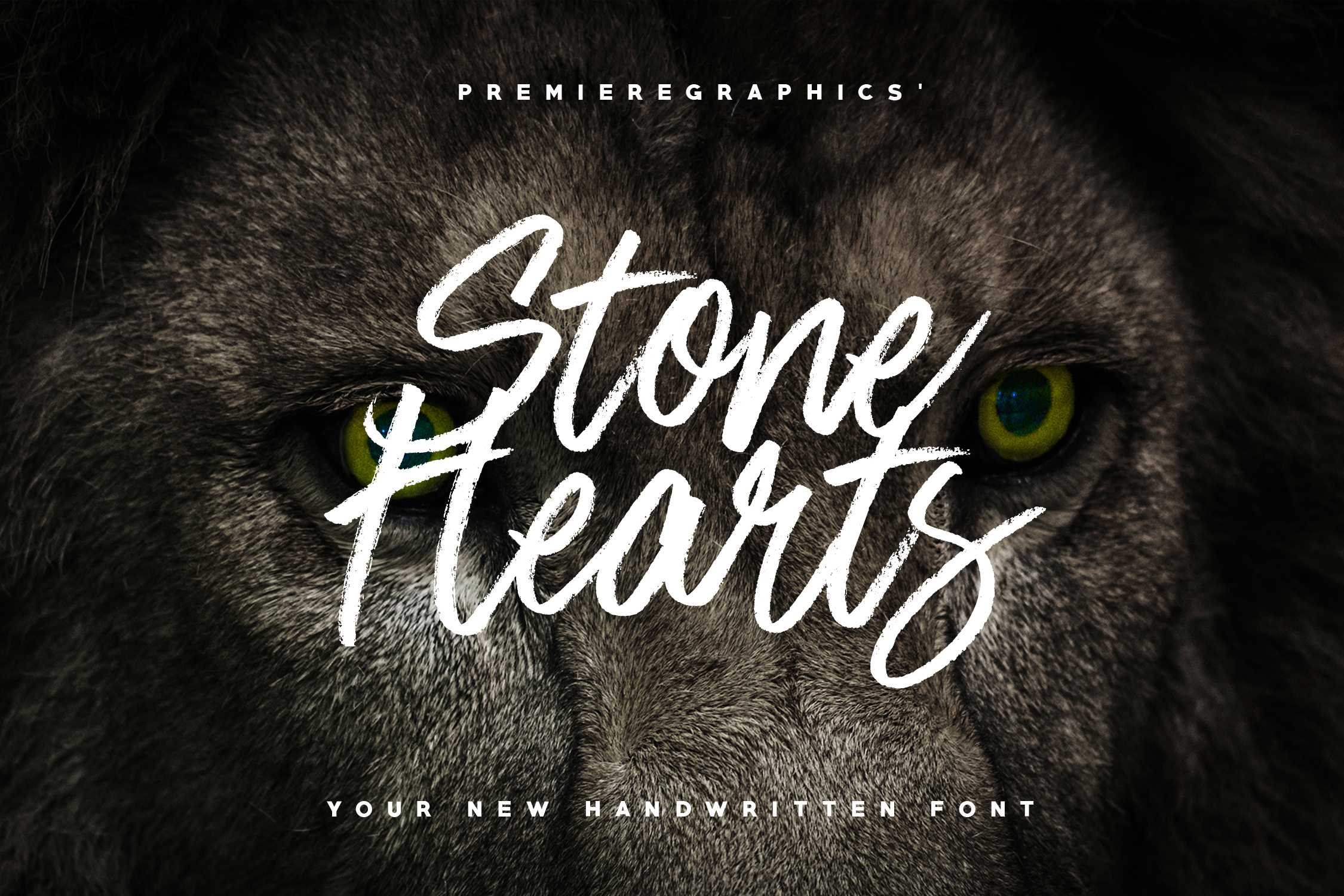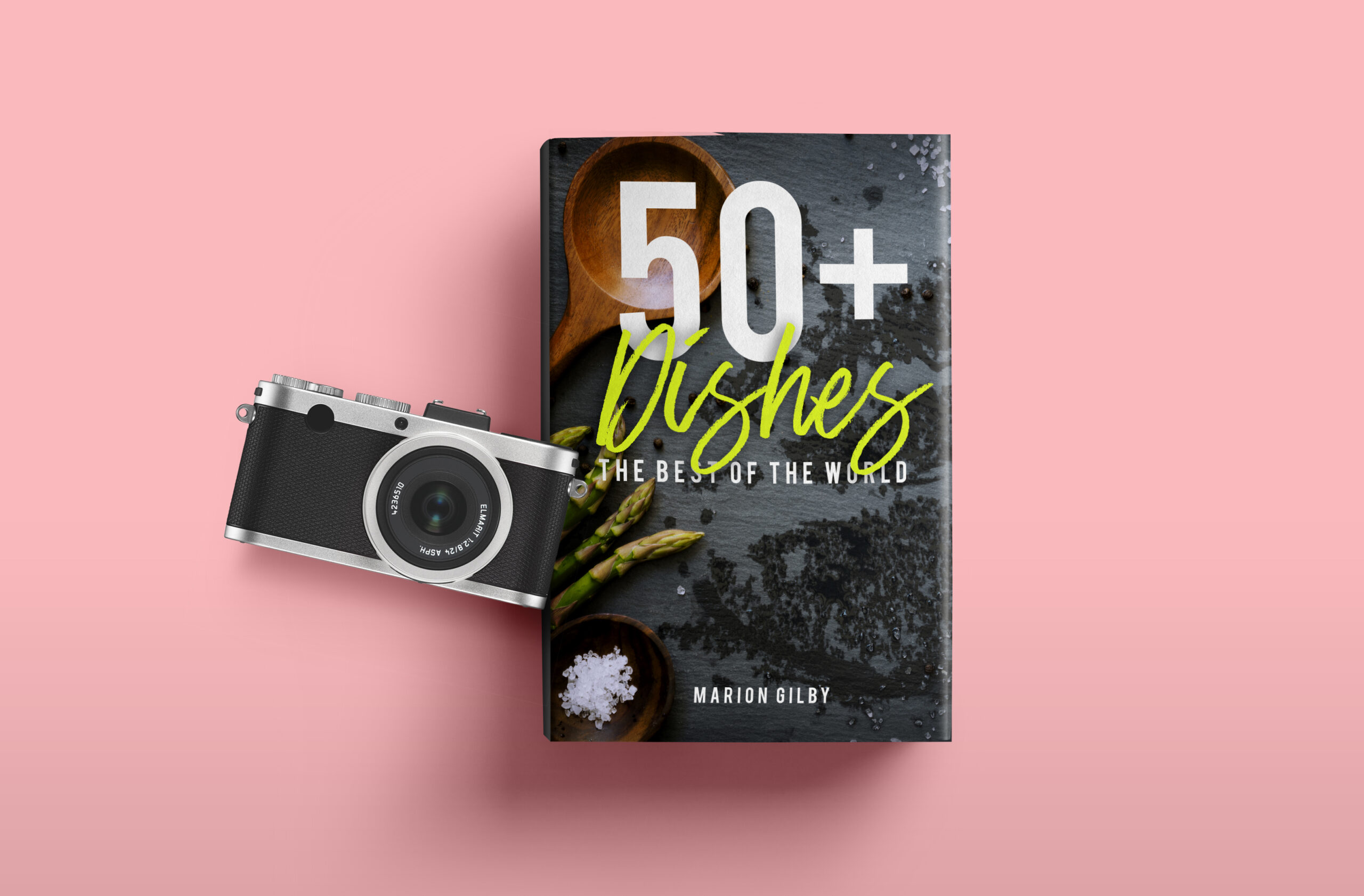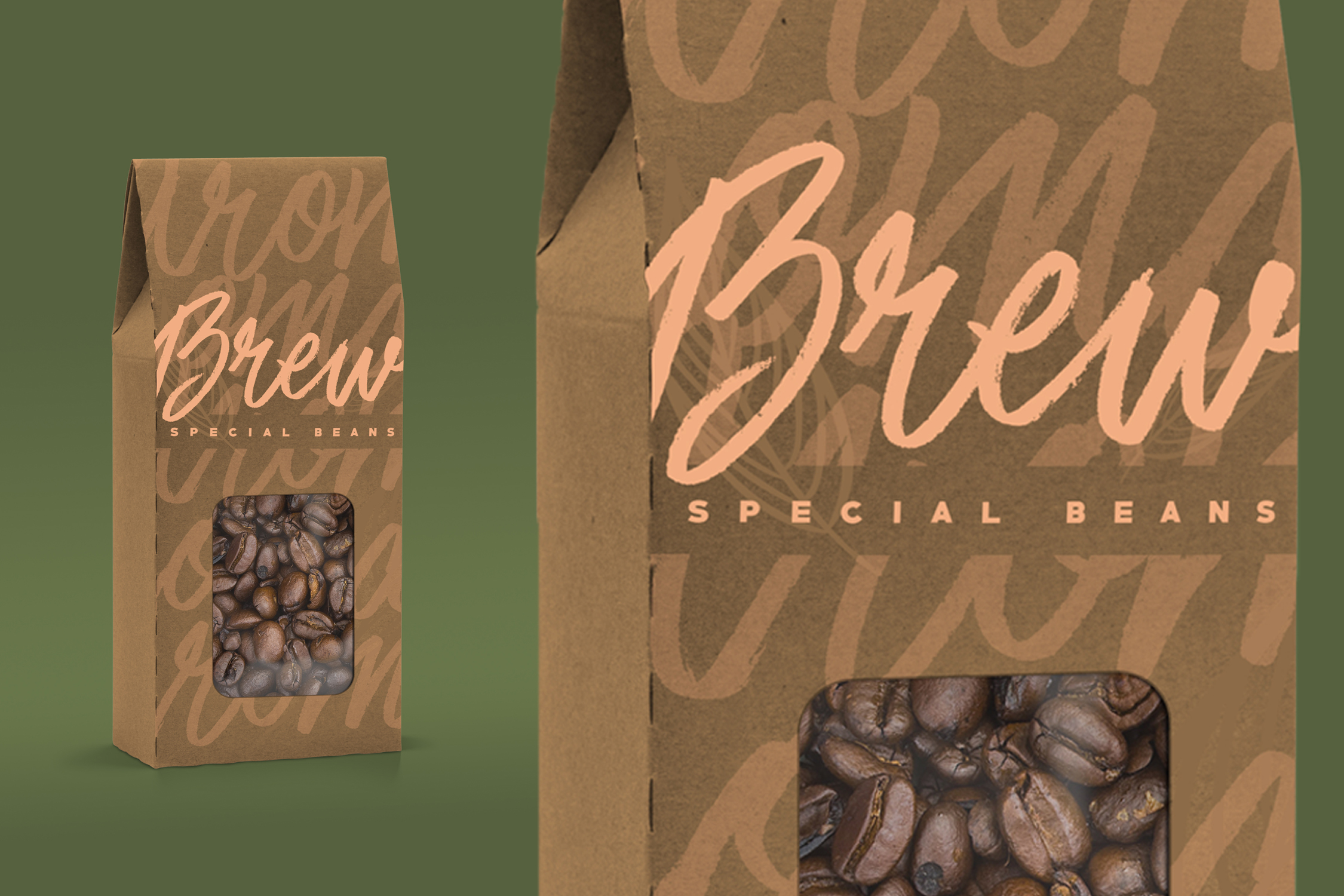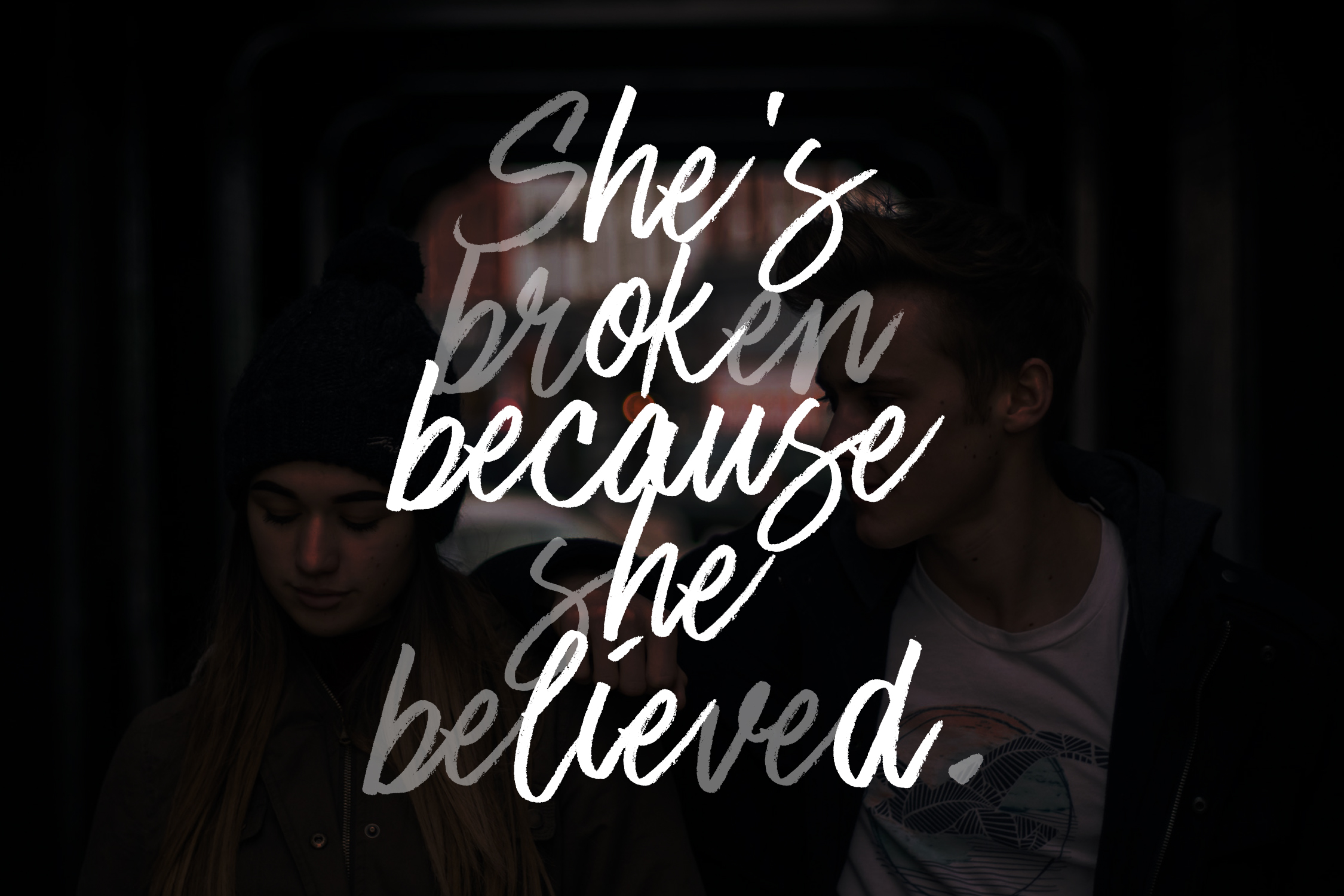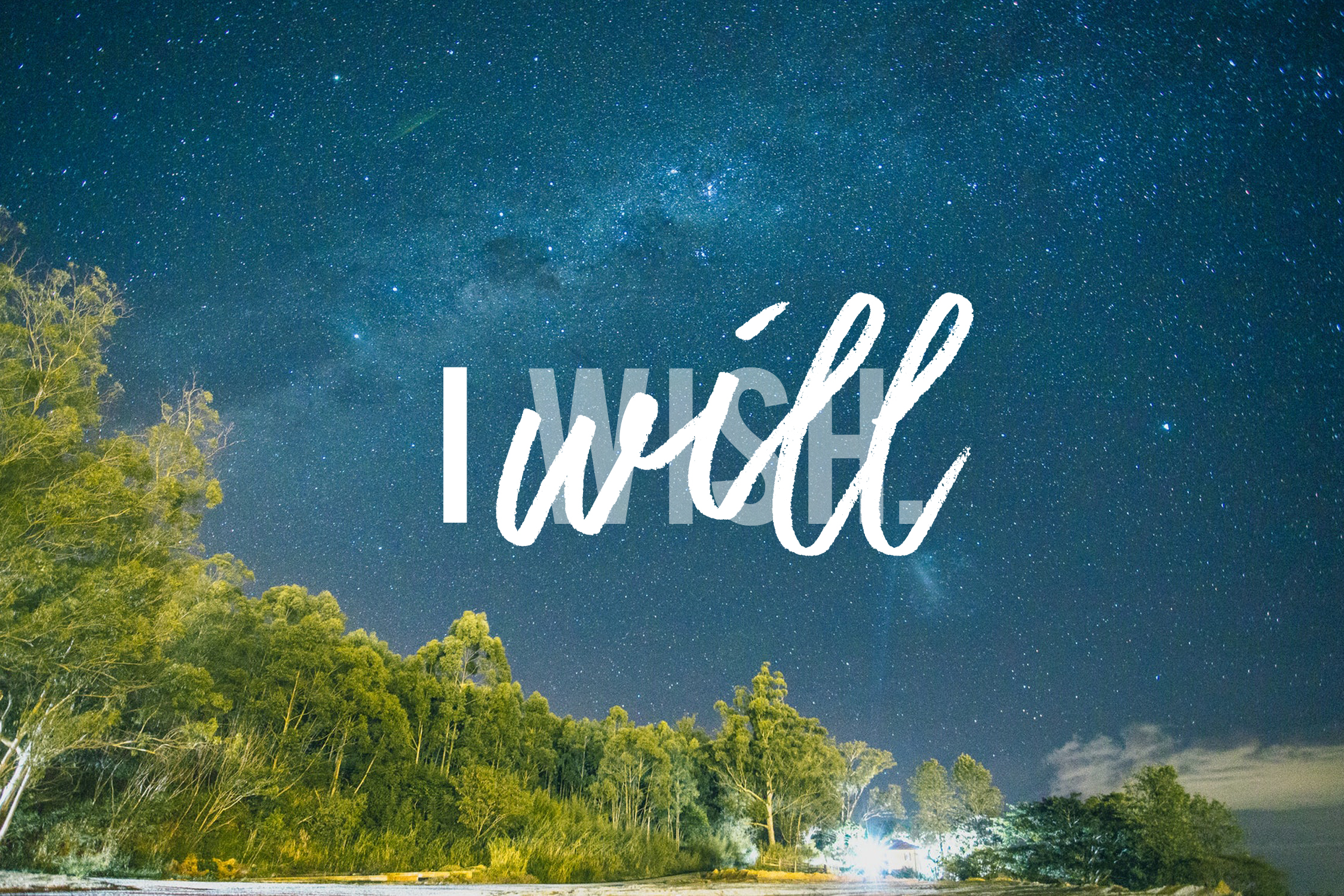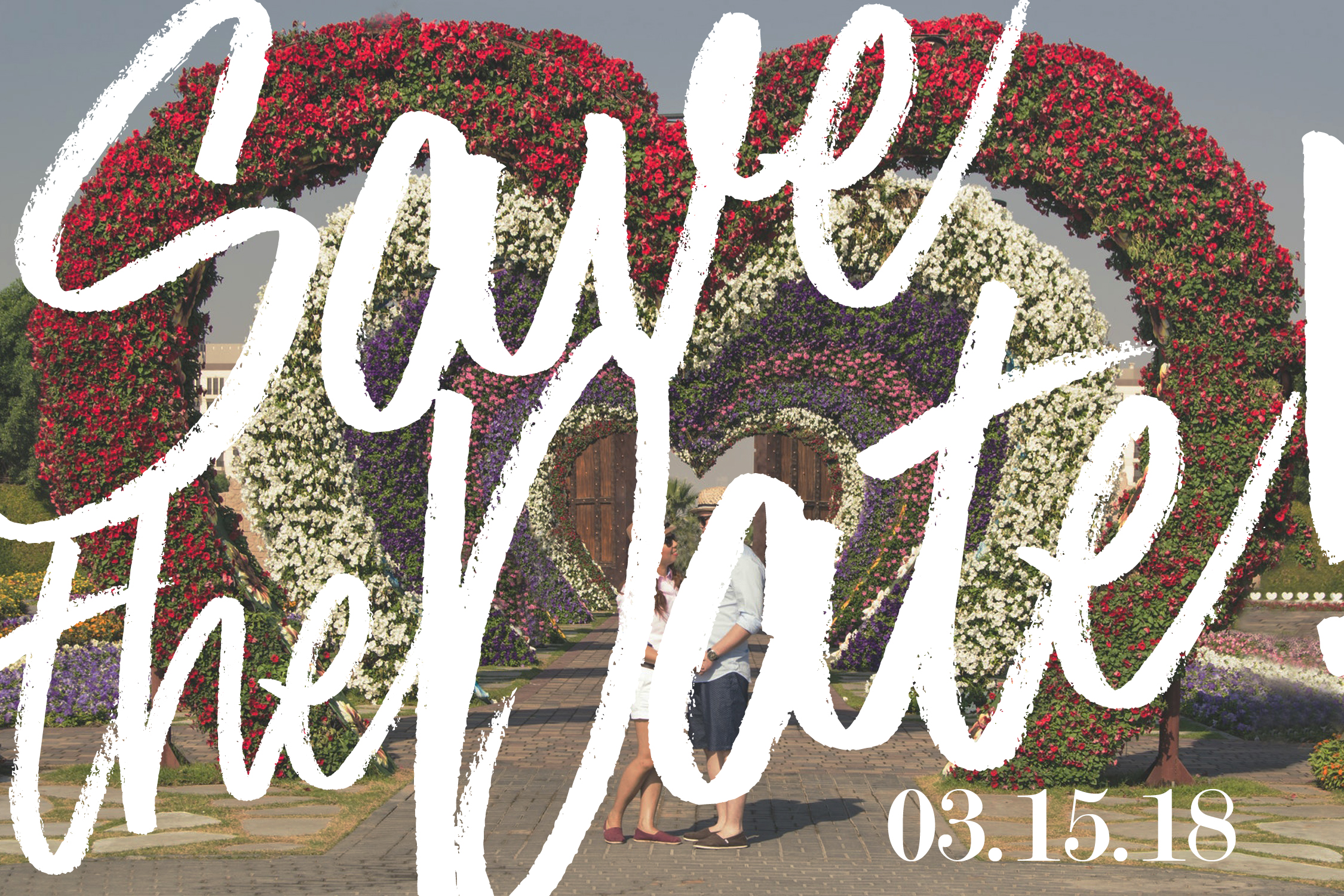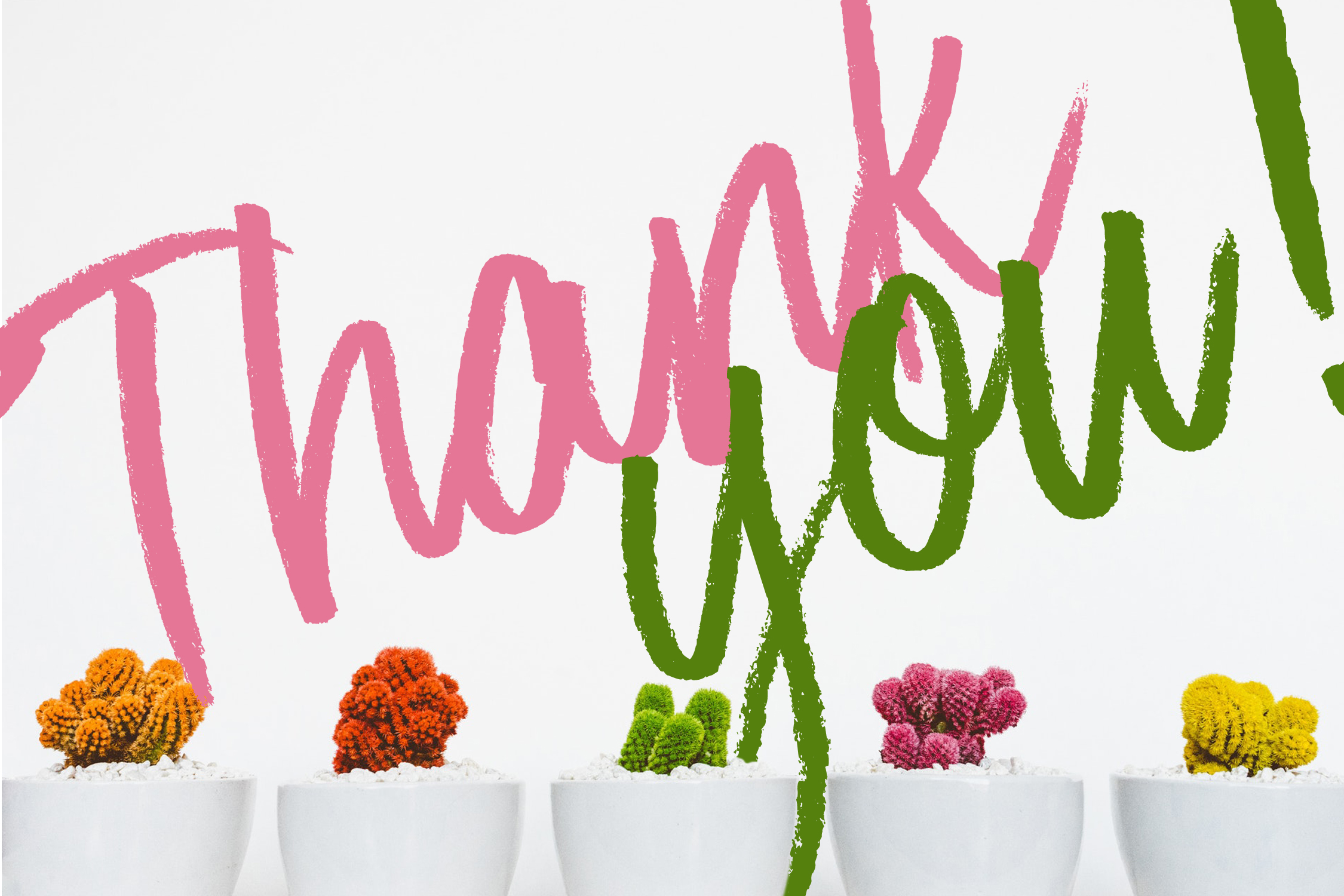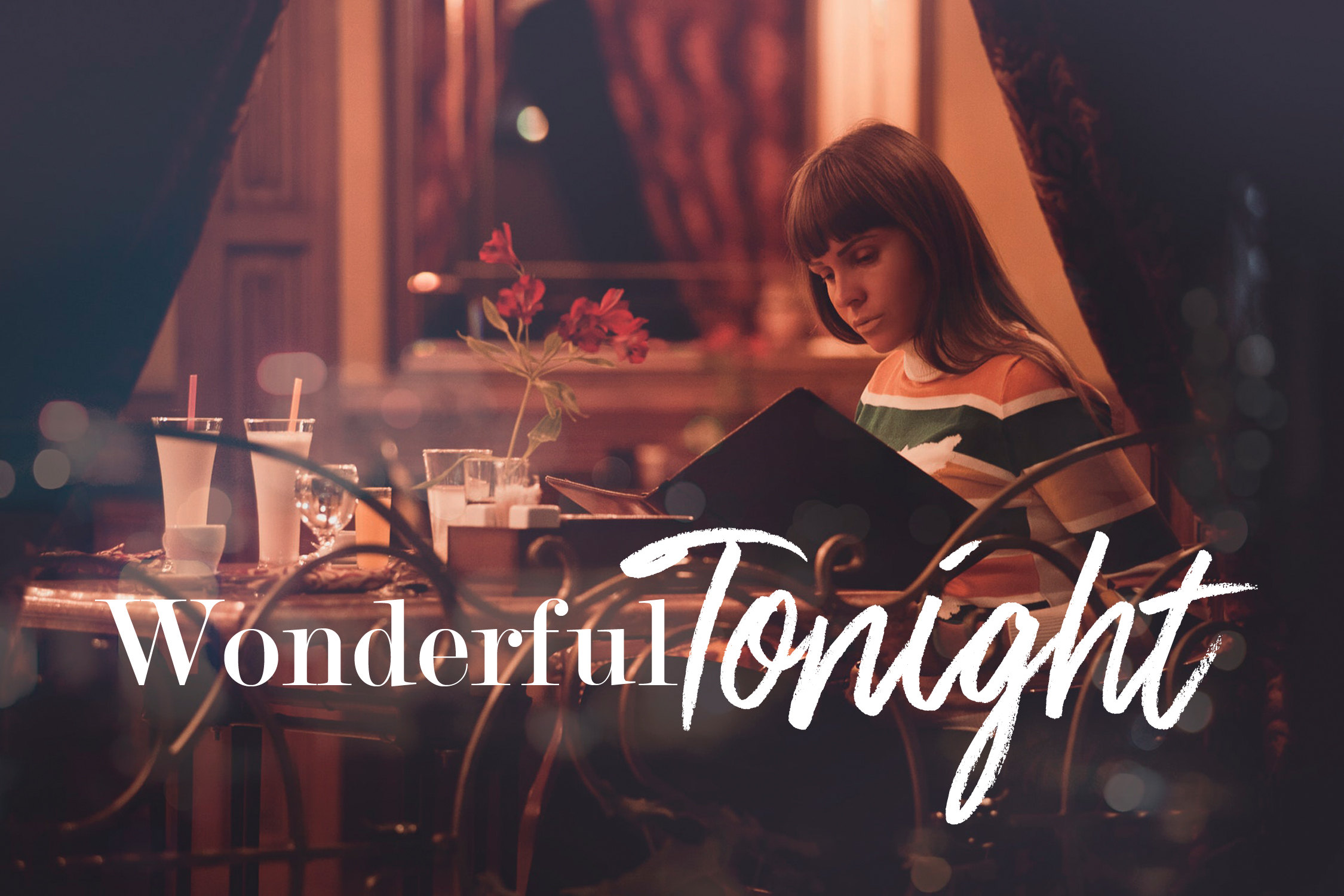
Stone Hearts Font
About Stone Hearts Font
Have a braver heart this Valentine’s Day! Stone Hearts font is not your regular Valentine’s Day font. It is a mixture of both sweet and fierce. The font is carefully handwritten using a dry marker to get the best matte appearance. Stone Hearts font is perfect for general displays, inspirational quotes and of course, calligraphy.